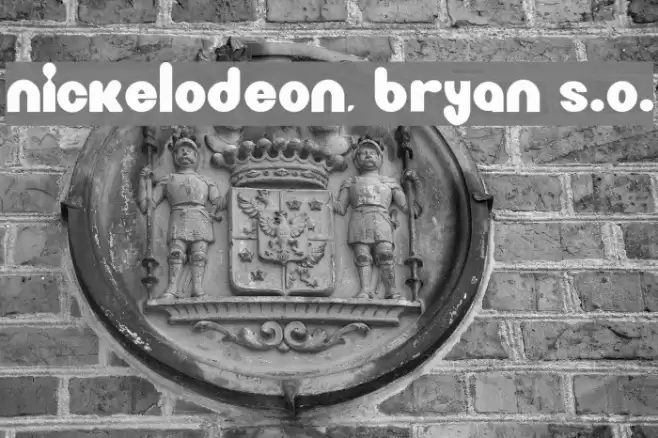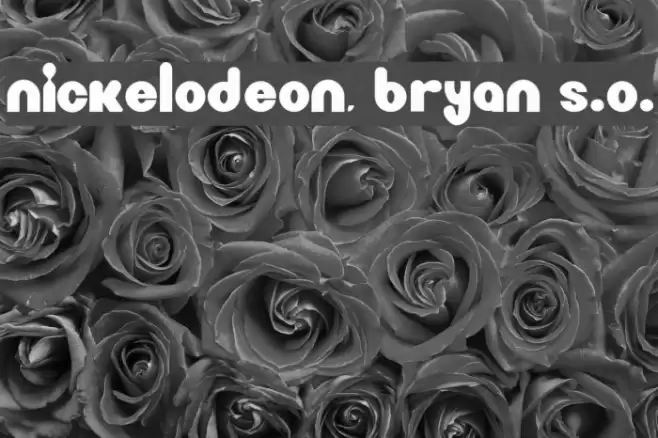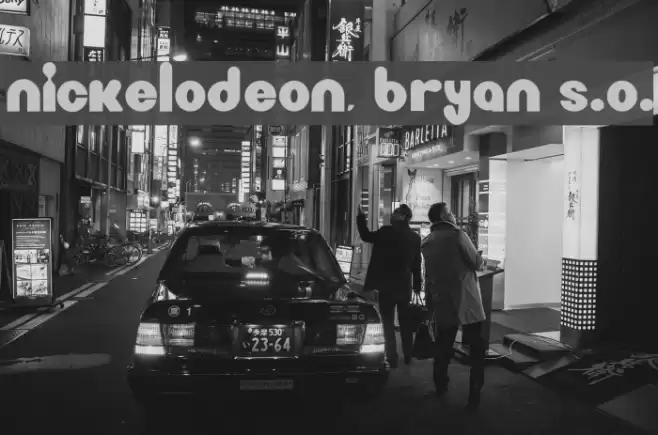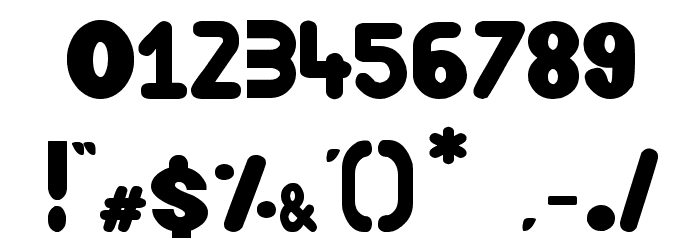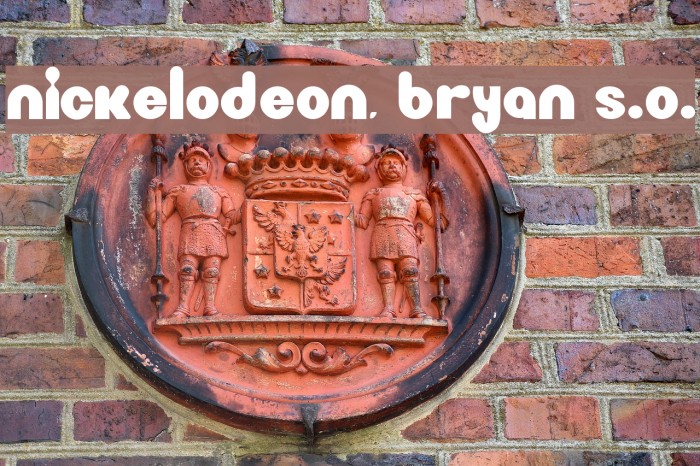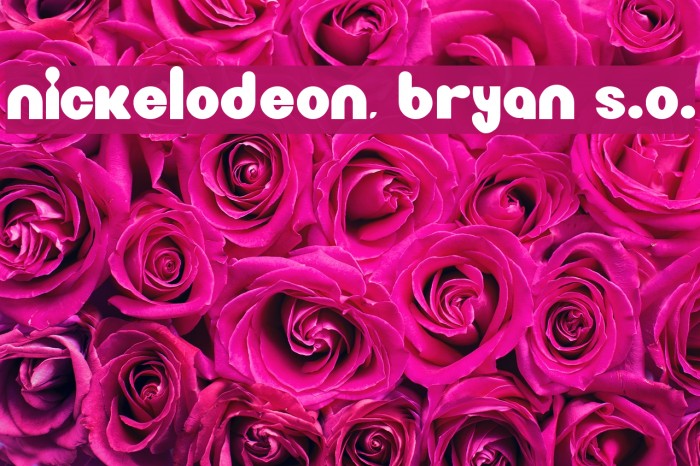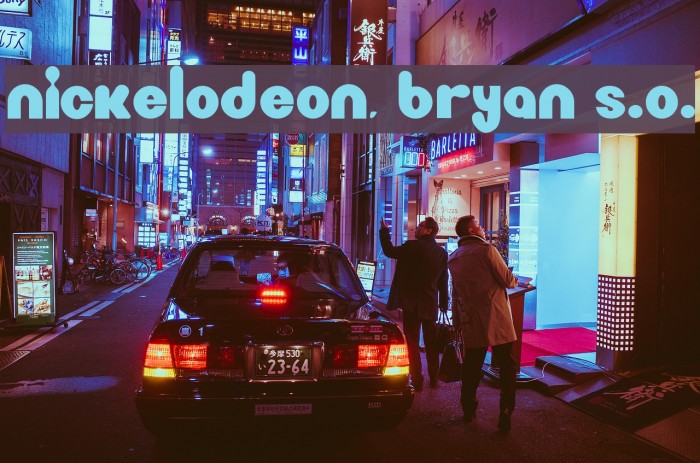
nickelodeon, Bryan S.O.
This playful and bold font features rounded, bubbly characters that exude a sense of fun and creativity. The letters are thick and uniform, with a consistent stroke width that gives them a solid, impactful appearance. The rounded edges and smooth curves contribute to a friendly and approachable feel, making it ideal for projects aimed at children or those seeking a whimsical touch. The numbers and special characters maintain the same playful style, ensuring a cohesive look across all text elements. This font is perfect for capturing attention and adding a lively, energetic vibe to any design.
A playful, bold font with rounded, bubbly characters ideal for fun and creative projects.
- Proposed Projects: Children's books, toy packaging, playful branding, party invitations, and animated graphics.
- Overall Style: Playful, Whimsical
- Use Case: Headlines, Logos, Posters